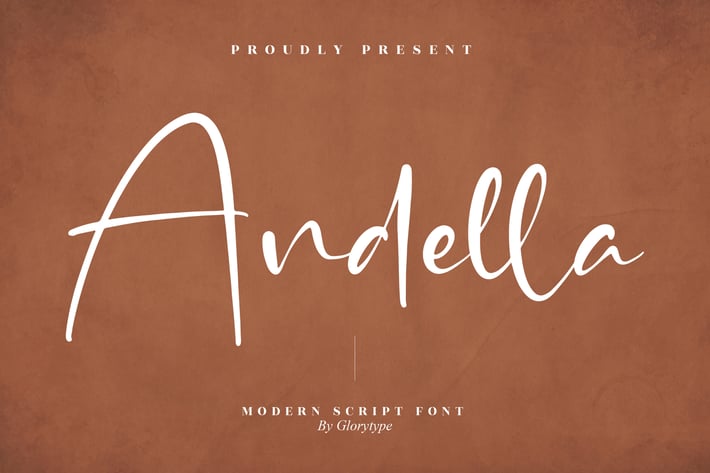
Andella Modern Script Font
Andella is a modern script typeface that captures elegance, warmth, and personal charm. With its fluid strokes and handwritten aesthetics, Andella adds a natural, graceful touch to any design. Perfect for conveying sophistication and emotion, this typeface works beautifully for branding, wedding invitations, quotes, and lifestyle projects where a personal feel is key.
+ Modern handwritten script style
+ Smooth and flowing letterforms
+ Uppercase & lowercase letters
+ Numbers, punctuation & symbols
+ Multilingual support
+ Branding & logo design
+ Wedding invitations
+ Greeting cards & stationery
+ Social media posts
+ Quotes & photography overlays
+ Lifestyle & fashion projects
Infuse your designs with effortless grace and authenticity using Andella — a modern script font that speaks with elegance and emotion.